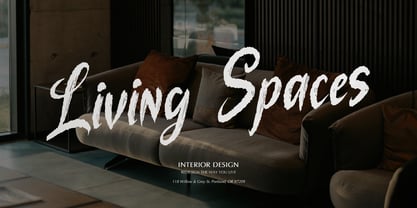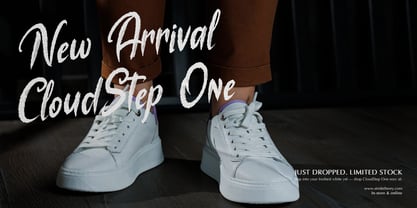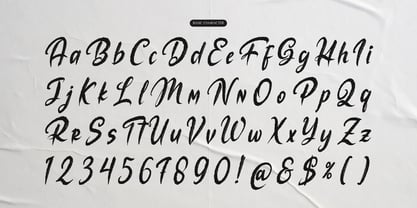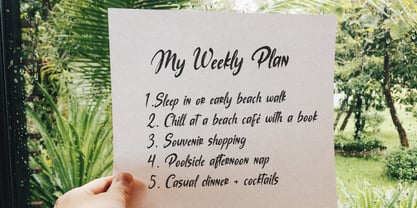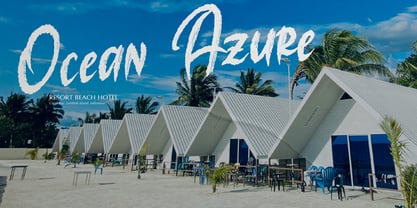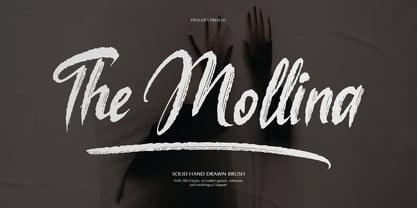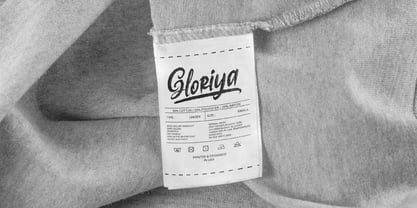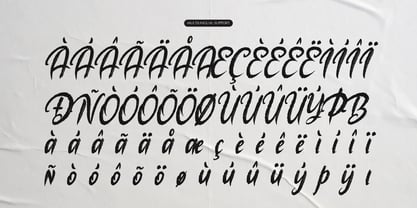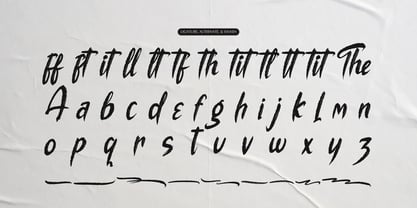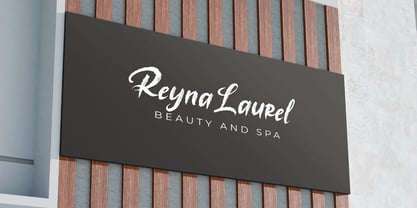
The Mollina
The Mollina | Solid Hand Drawn Brush, from Gracetypestudio, suitable for any projects such as: logos, branding projects, homeware designs, product packaging, mugs, quotes, posters, shopping bags, t-shirts, book covers, name card, invitation cards, greeting cards, label, photography, watermark, special events, and all your other lovely projects that need a Solid Hand Drawn Brush taste.
• Regular and Italic
• Standard glyphs
• Alternate and Ligature
• Fonts include multilingual support